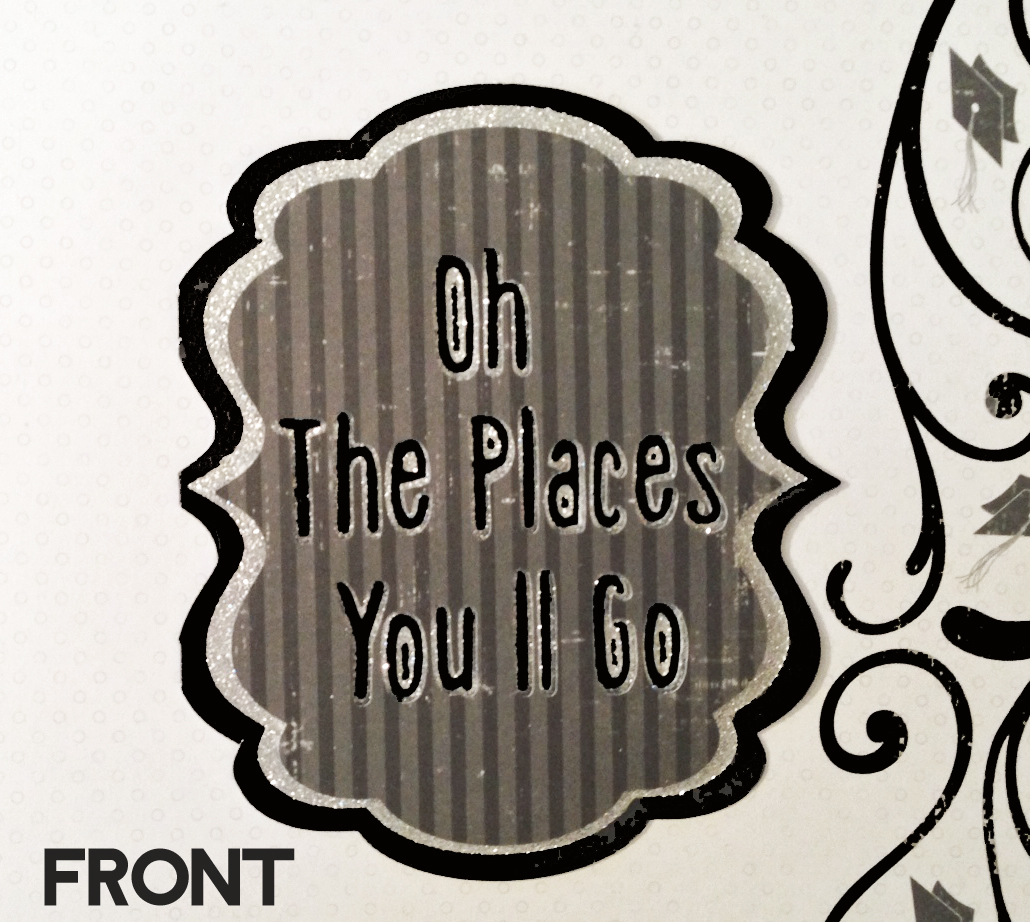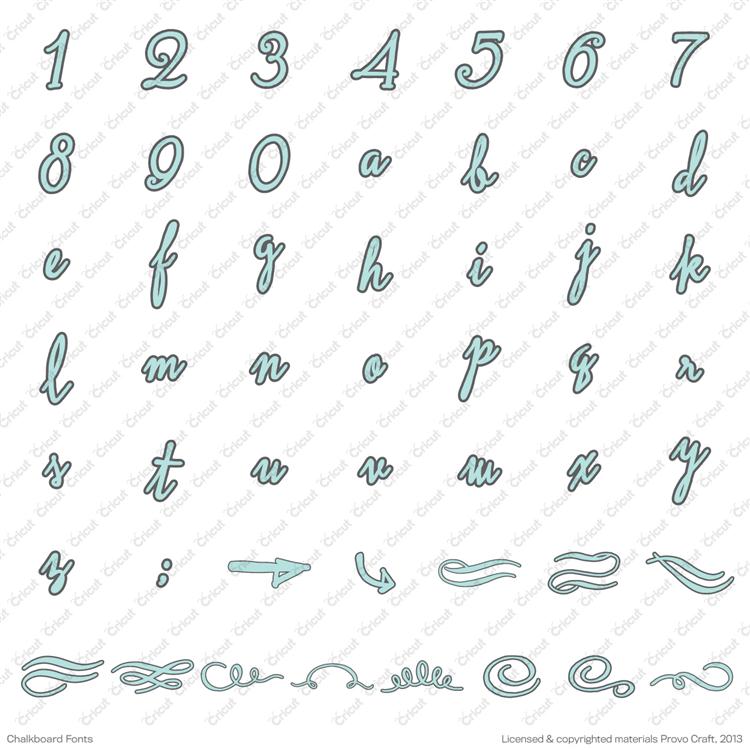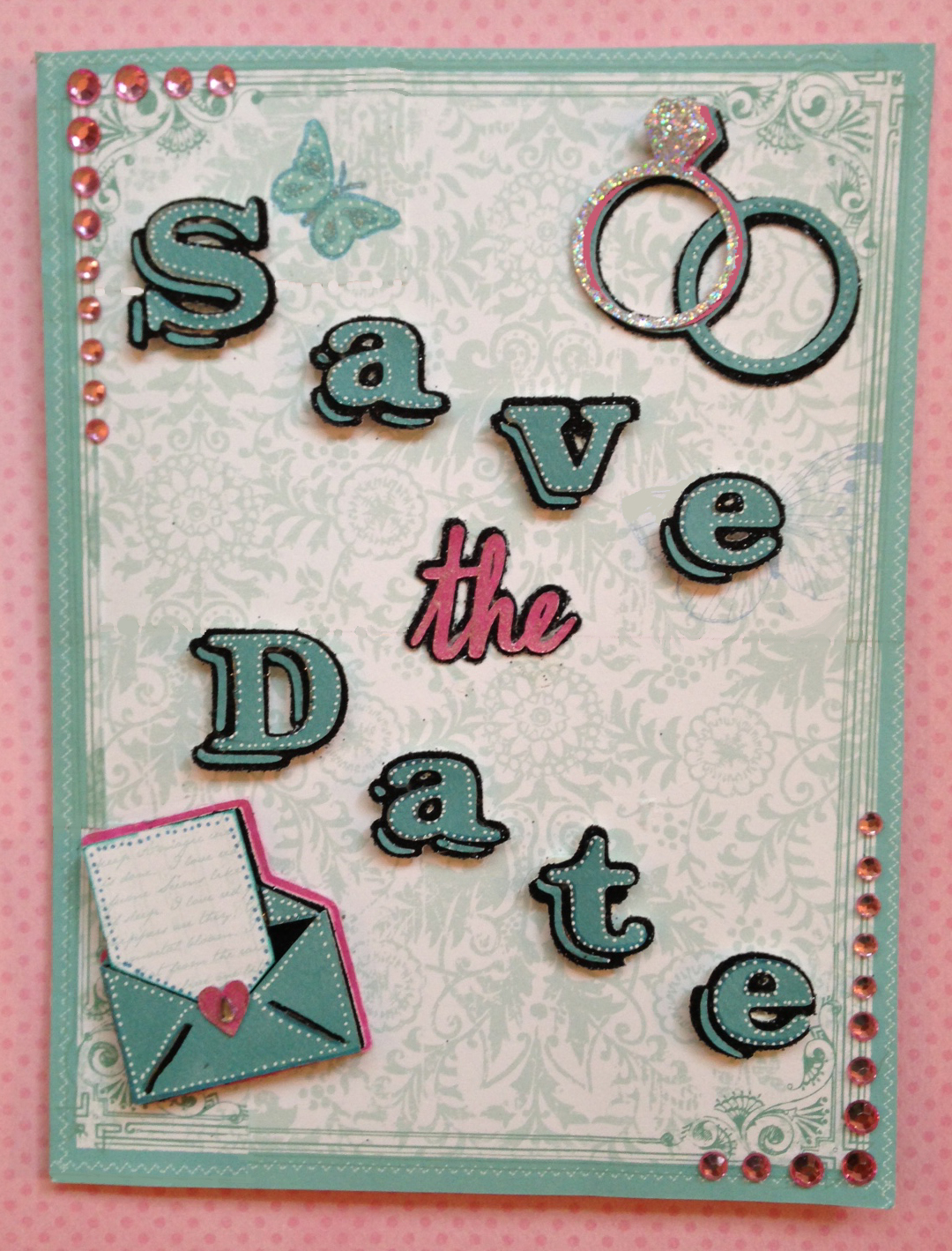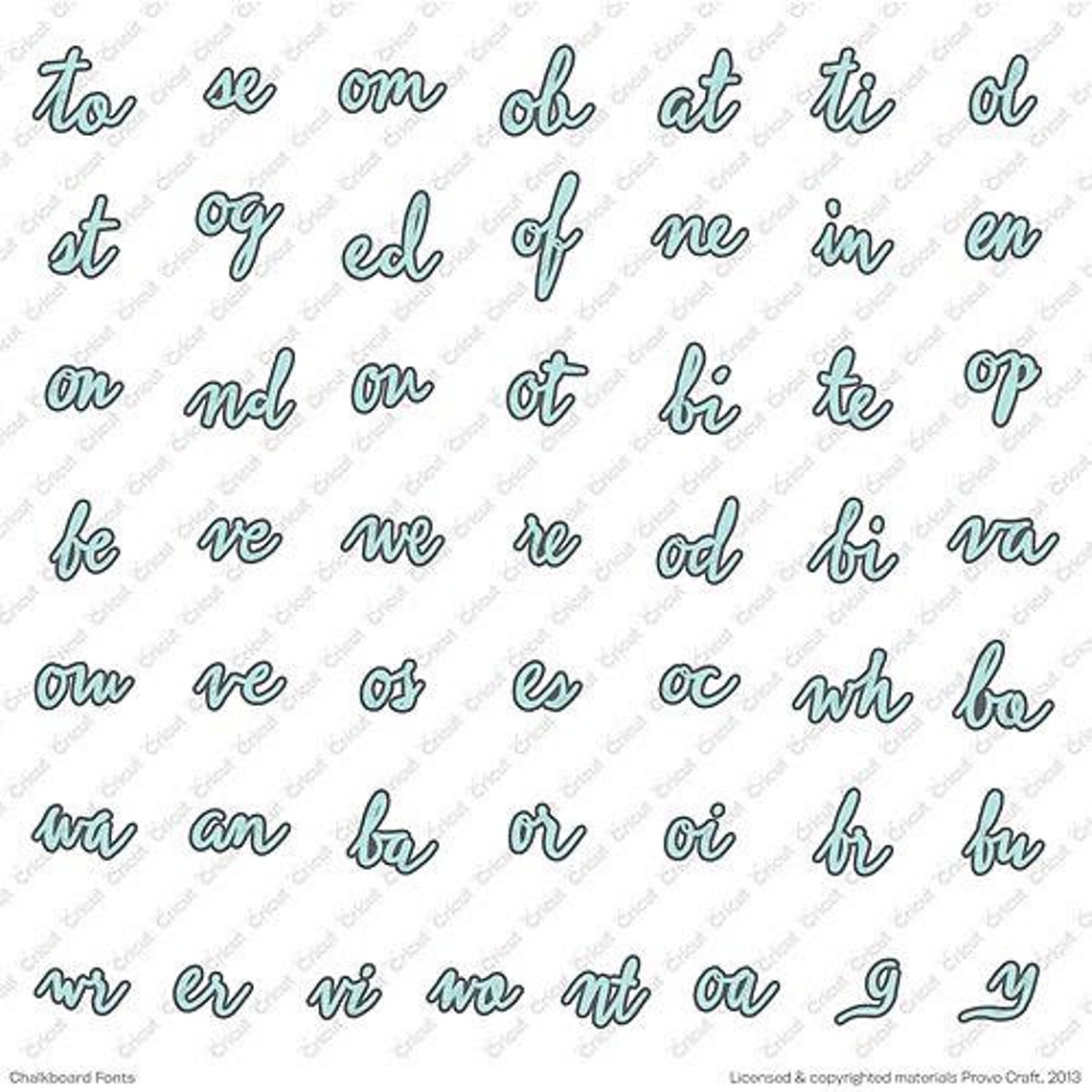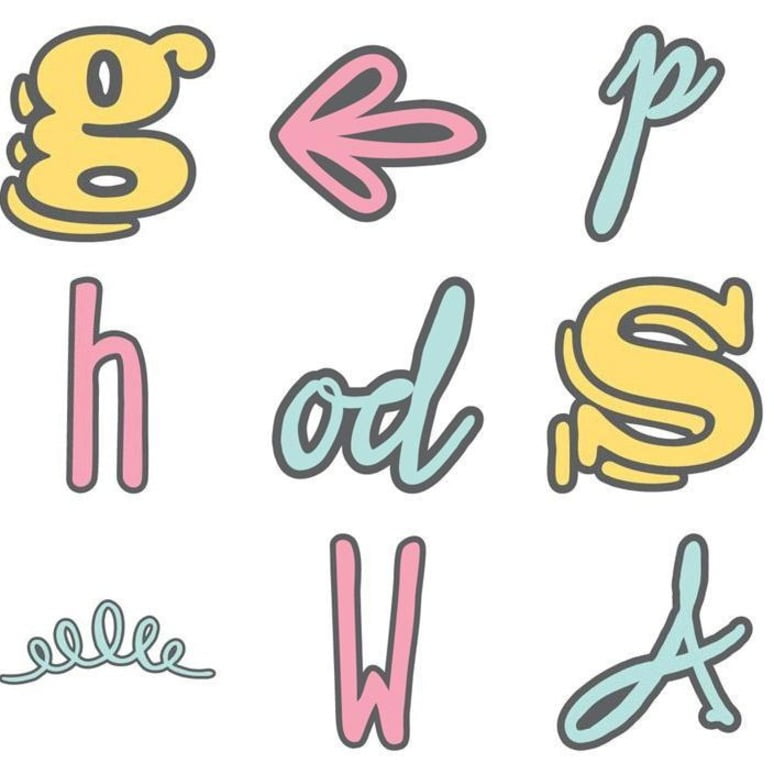
Chalkboard Fonts Cricut Cartridge . the chalkboard fonts cartridge gives you the distinctive look of hand lettering. featuring three different fonts, this cartridge lets you make custom lettering for invitations, signs, wall decor, and more. 3 different fonts on this font. Featuring three different fonts, this cartridge lets. Check each product page for other buying options. featuring three different fonts, this cartridge lets you make custom lettering for. 3 different fonts on this font. 3 different fonts on this.
3 different fonts on this font. 3 different fonts on this. 3 different fonts on this font. Check each product page for other buying options. featuring three different fonts, this cartridge lets you make custom lettering for invitations, signs, wall decor, and more. featuring three different fonts, this cartridge lets you make custom lettering for. Featuring three different fonts, this cartridge lets. the chalkboard fonts cartridge gives you the distinctive look of hand lettering.